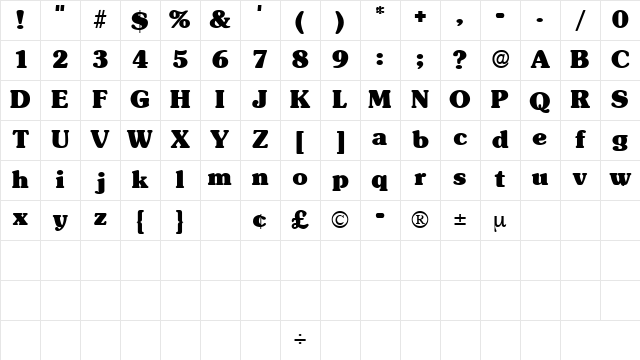
Design Context for BerraDisplaySSK
BerraDisplaySSK is built around its visual character rather than neutral utility - its distinctive forms are designed to make an impression at display sizes.
Font Pairing: Pair with a clean neutral sans-serif for body copy to let BerraDisplaySSK's character lead without overwhelming the composition.
Pro Tip: Use BerraDisplaySSK exclusively at display sizes - it was designed to be seen, not read at length. Let a neutral companion handle body copy.